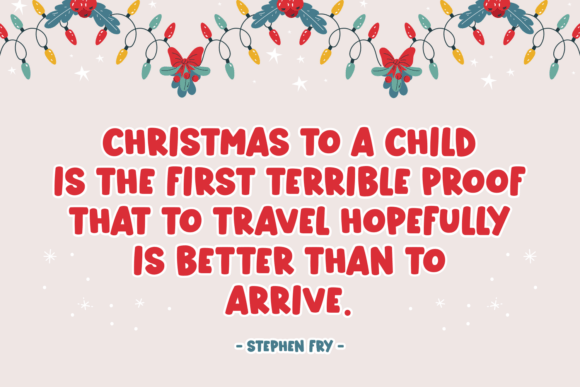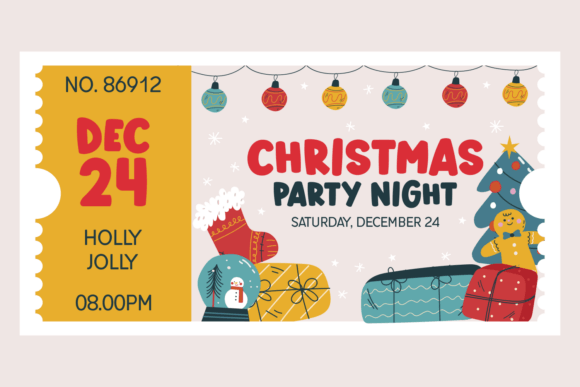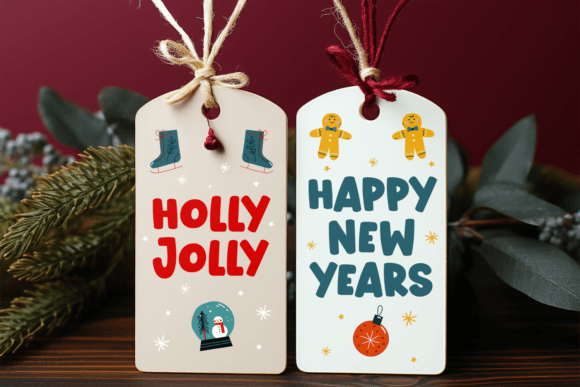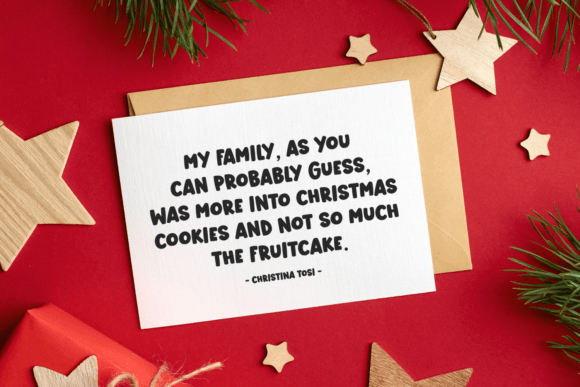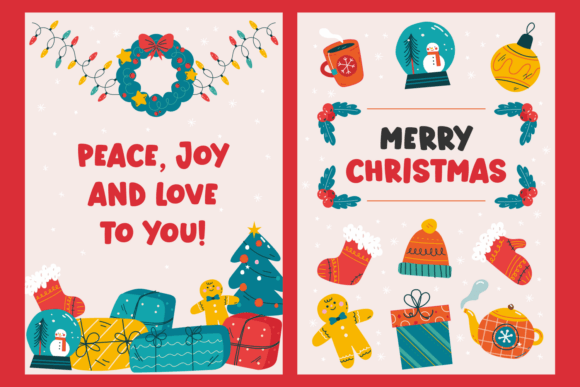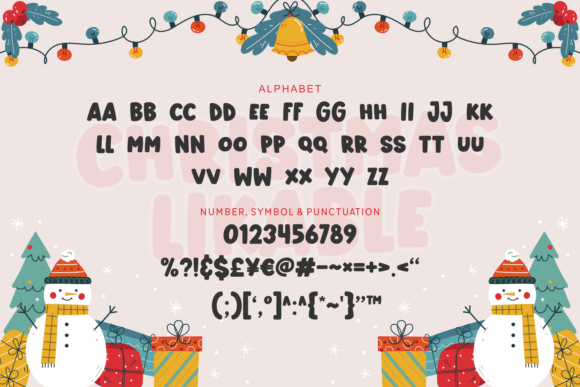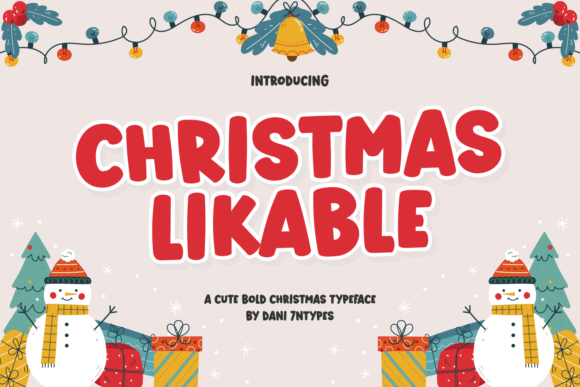
Christmas Likable Font: The Perfect Addition to Your Holiday Designs
Are you looking for a font that captures the essence of Christmas and adds a touch of fun to your holiday designs? Look no further than Christmas Likable Font! This adorable and bold display font is perfect for designers and crafters who want to create festive and cheerful designs that spread joy and warmth.
What Makes Christmas Likable Font So Special?
Christmas Likable Font is a unique and eye-catching font that boasts a playful style and easy-to-read letters. Its bold and curly design makes it perfect for creating attention-grabbing headlines, titles, and decorations that scream “Merry Christmas!” The font’s friendly and approachable feel makes it ideal for use in Christmas cards, gift tags, and other holiday-themed designs.
Perfect for Holiday Designs
Christmas Likable Font is specifically designed to bring warmth and cheer to your holiday designs. Whether you’re creating Christmas cards, decorations, or social media posts, this font is sure to add a fun and festive touch. Its versatility makes it perfect for use in a wide range of designs, from traditional Christmas designs to more modern and quirky creations.
Key Features of Christmas Likable Font
- Cute and bold design: Christmas Likable Font features a bold and curly design that’s sure to grab attention.
- Easy-to-read letters: The font’s letters are easy to read, making it perfect for use in titles, headlines, and other designs where readability is key.
- Playful style: The font’s playful style makes it perfect for creating fun and festive designs that capture the spirit of Christmas.
- Versatile: Christmas Likable Font can be used in a wide range of designs, from traditional Christmas designs to more modern and quirky creations.
How to Use Christmas Likable Font in Your Designs
Why Designers and Crafters Love Christmas Likable Font
Designers and crafters love Christmas Likable Font for its unique and playful design. Here are a few reasons why:
- High-quality design: The font is designed with high-quality graphics, making it perfect for use in professional designs.